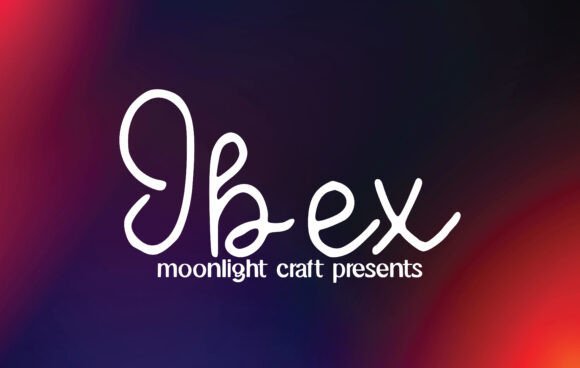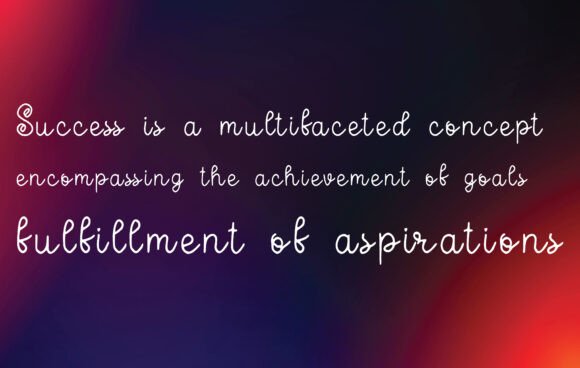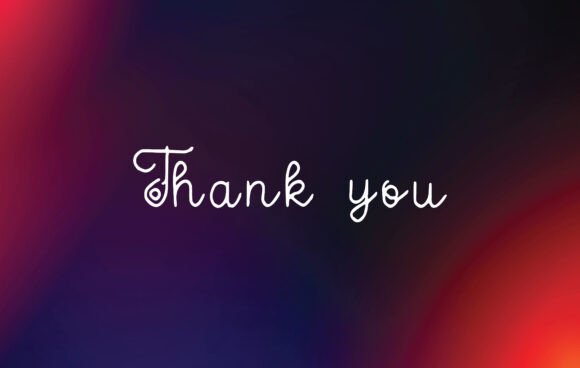
Unlock Your Creative Potential with the Ibex Font
There’s nothing quite like the thrill of a blank canvas, waiting for the brushstrokes of your imagination to bring it to life. As designers, we’ve all experienced that rush of excitement when a new idea begins to take shape. But sometimes, all it takes is the right tool to elevate your creative vision to new heights.
Enter the Ibex Font, a beautiful and elegant handwritten font that’s sure to captivate your audience. With its unique charm and versatility, Ibex Font is the perfect choice for creating eye-catching logos, branding, and quotes that will leave a lasting impression. Whether you’re a seasoned designer or just starting out, this font is a valuable addition to your toolkit, offering endless possibilities for creative expression.
Ibex Font Key Features
- Unique Characteristics: Ibex Font features a unique blend of modern and classic elements, with a distinctive x-height and a range of letterforms that are both elegant and readable.
Ibex Font Review
Overall, I’m quite impressed with Ibex Font, but like any font, it has its strengths and weaknesses.
- Unique letterforms: Ibex Font’s irregular shapes and lines give it a quirky, hand-drawn feel that’s hard to find in modern fonts.
- Legibility: Despite its unconventional design, Ibex Font remains surprisingly readable, even at small sizes.
- Expressive potential: The font’s irregularities make it perfect for creating dynamic, expressive typography that adds a touch of personality to any design.
- Limited usage: Ibex Font may not be the best choice for formal or traditional designs, where a more conservative font would be more suitable.
- May not be suitable for body text: While Ibex Font is readable, it may not be the most comfortable font to read in large quantities, making it better suited for headlines and titles.
- Not ideal for small sizes: While the font remains readable, its unique design may not scale well to very small sizes, where the irregularities may become distracting.
Overall, Ibex Font is a great choice for designers looking for a unique, expressive font that adds a touch of personality to their work. While it may not be suitable for every project, it’s a valuable addition to any font library.
Some tips for getting the most out of Ibex Font include:
- Using it for bold, modern headings.
- Pairing it with other fonts for a unique and stylish combination.
- Using it for titles and subtitles in presentations and documents.
Alternatives to Ibex Font